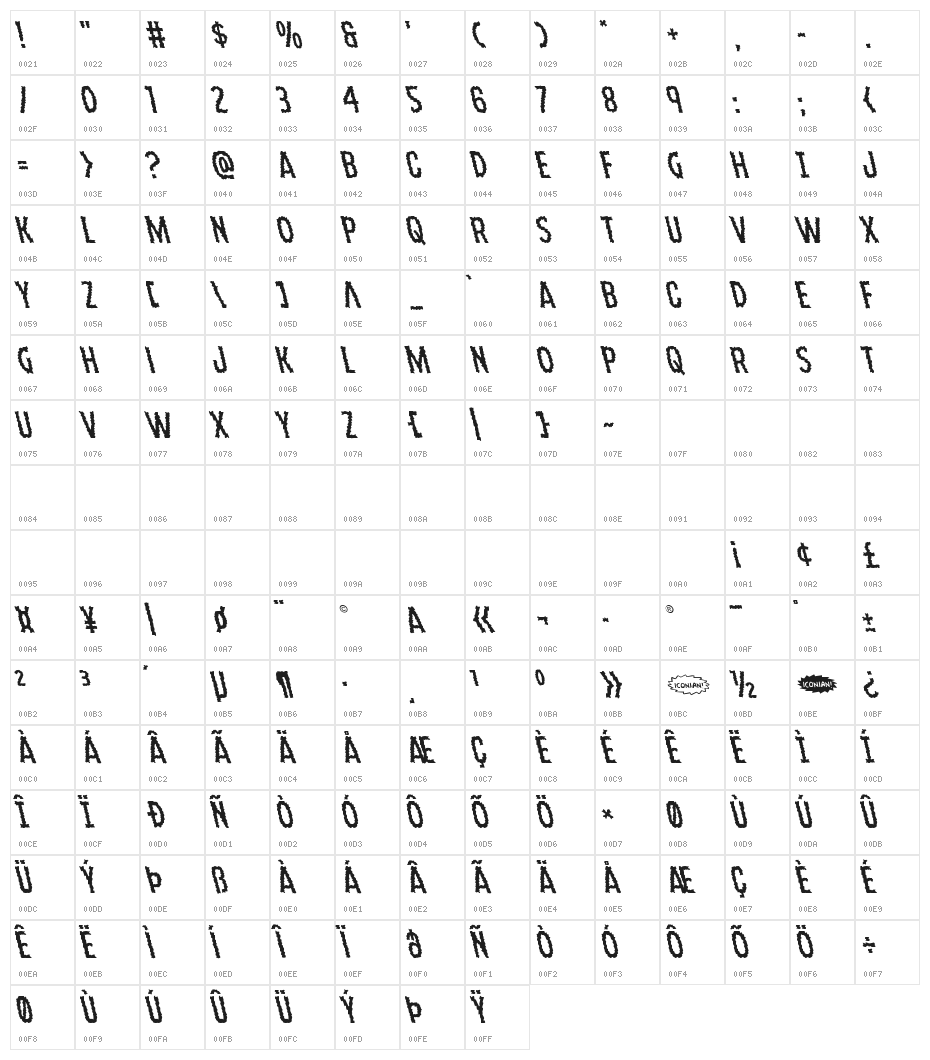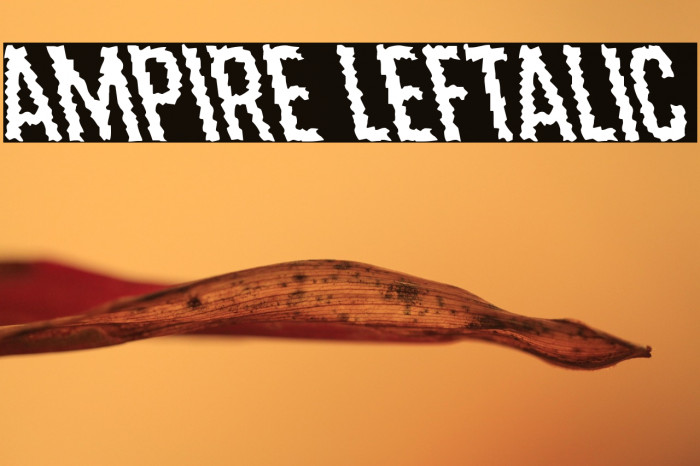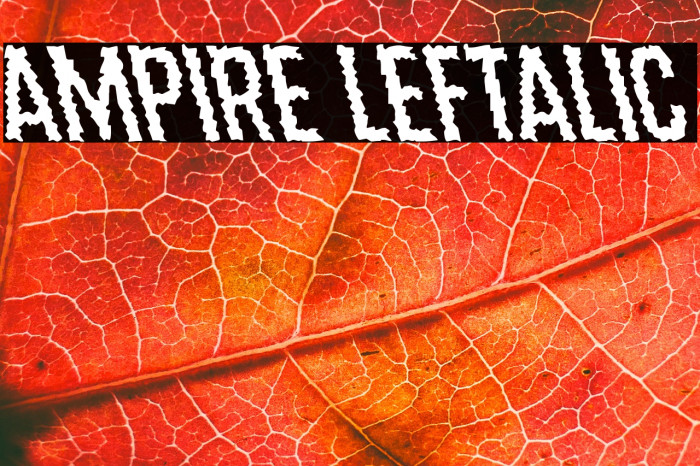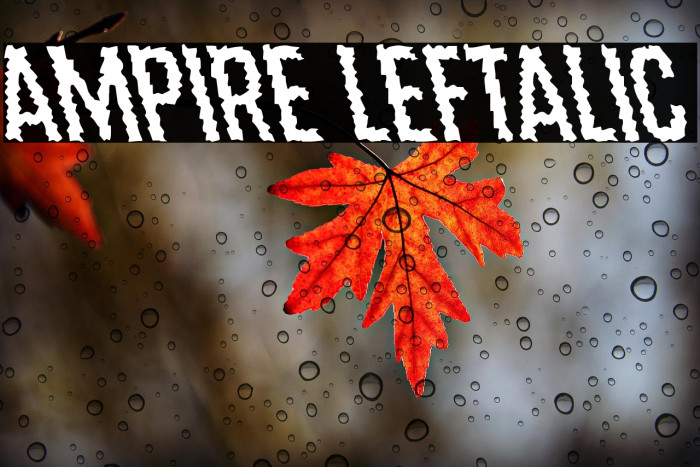
Ampire Leftalic Font
Ampire Leftalic Description
This font features a bold and jagged design, reminiscent of a distressed or rough-edged style. The characters are sharply angled, giving a dynamic and energetic feel. The uppercase and lowercase letters maintain a consistent width, while the numbers and special characters follow the same rugged aesthetic. The overall appearance is striking and unconventional, making it suitable for attention-grabbing designs. The font's unique texture and slanted orientation contribute to its distinctive character, ideal for projects that require a bold statement.
Proposed ProjectsIdeal for horror-themed posters, edgy branding, album covers, and event flyers.